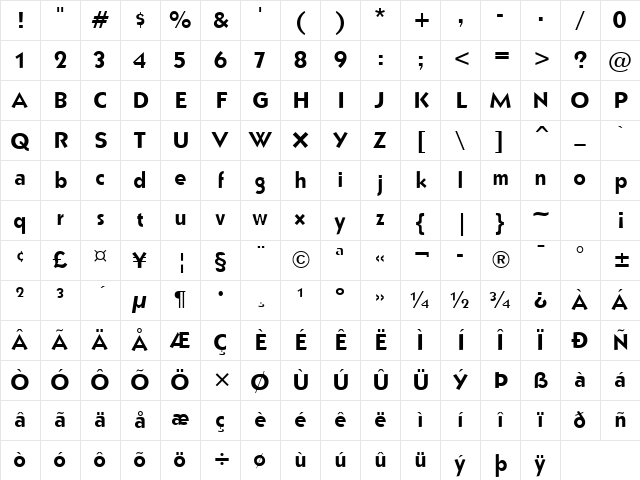
Bully Narrow Normal
Bully Narrow Family
Complete Bully Narrow Normal glyph index. Displaying only characters natively supported by Bully Narrow Normal font.
Design Context for Bully Narrow
Bully Narrow is a composed and adaptable typeface that performs quietly and consistently across a wide range of design contexts. Its narrow stance lets it pack a punch even in space-constrained designs.